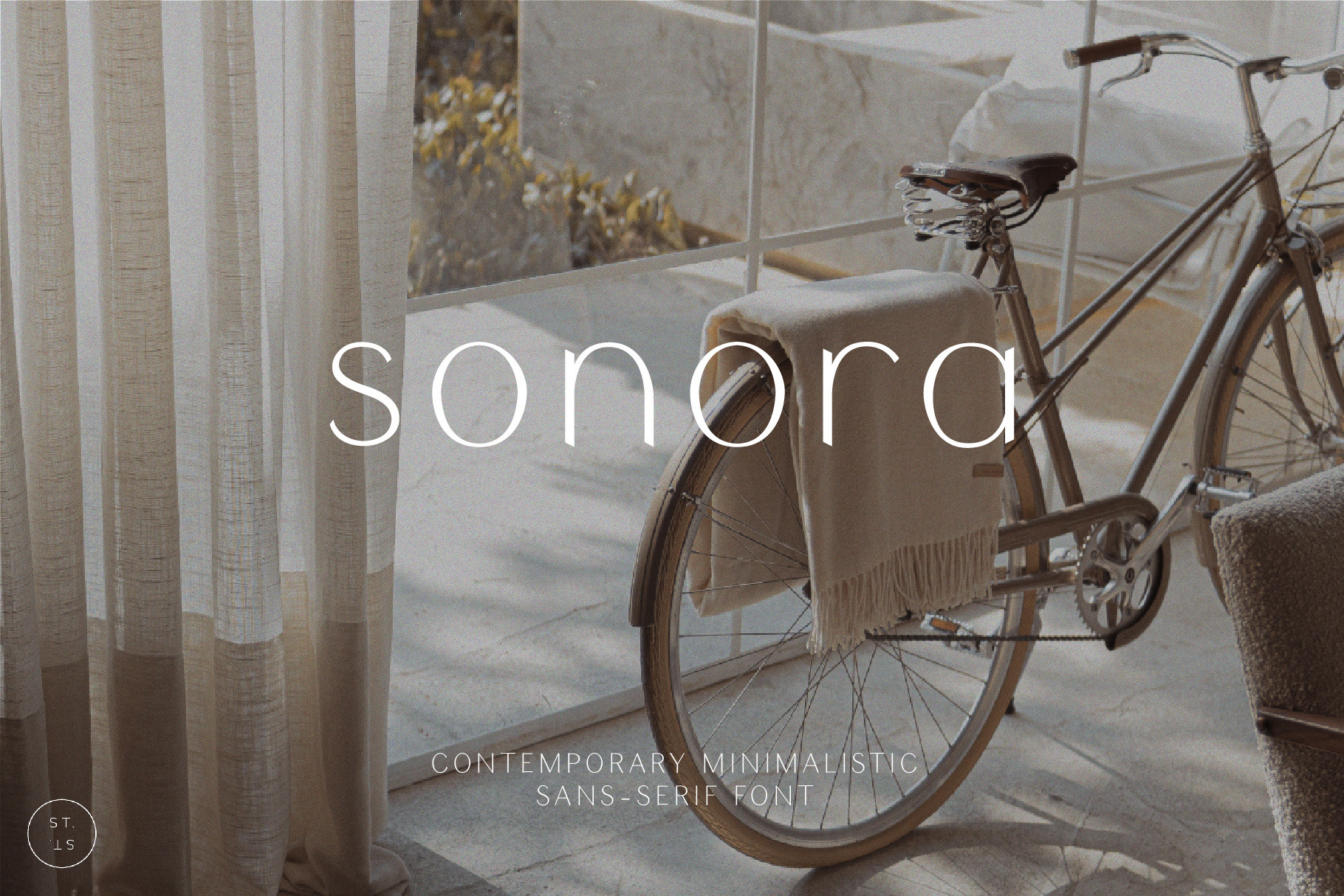
SONORA - Modern Sans-Serif Font
ABOUT SONORA SANS-SERIF FONT: Sonora is a contemporary minimal sans-serif font with a feminine and elegant aesthetic. Designed to suit modern and clean designs for web, branding, packaging, publications, and more.